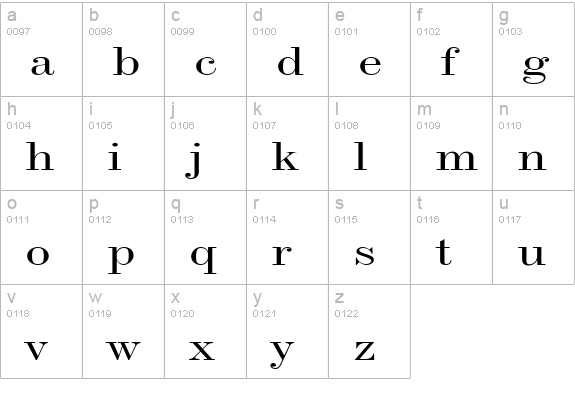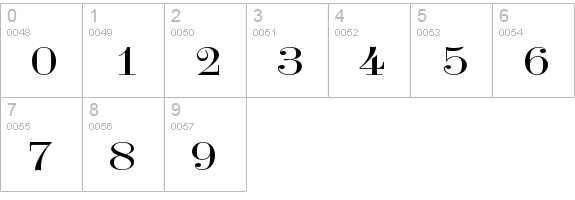
Indy 17 Extended Normal Font Details
Indy 17 Extended Normal is the standard, neutral, extended-width variant in the Indy typeface family \xE2\x80\x94 well suited to general body text, paragraphs, and standard typographic work.
Indy 17 Extended Normal font is a stylish and versatile typeface that exudes charisma and elegance. This font features extended proportions, adding a touch of sophistication to any design project. Its clean lines and modern aesthetic make it perfect for a variety of applications, from branding and advertising to editorial layouts and signage. With its tall letterforms and balanced spacing, Indy 17 Extended Normal font is a true standout. Its versatile nature allows it to effortlessly adapt to both formal and casual designs, making it a must-have for any typographic enthusiast. But what sets Indy 17 Extended Normal font apart is that it is not only visually stunning but also freely available. You can easily download this font at FontsMarket.com, where it is accessible to anyone looking to enhance their creative endeavors. Whether you're a graphic designer, web developer, or simply someone who appreciates beautiful typography, Indy 17 Extended Normal font is an excellent addition to your collection. So why wait? Experience the beauty and versatility of Indy 17 Extended Normal font today and elevate your designs to new heights. Download it for free at FontsMarket.com and discover the endless possibilities this font has to offer.